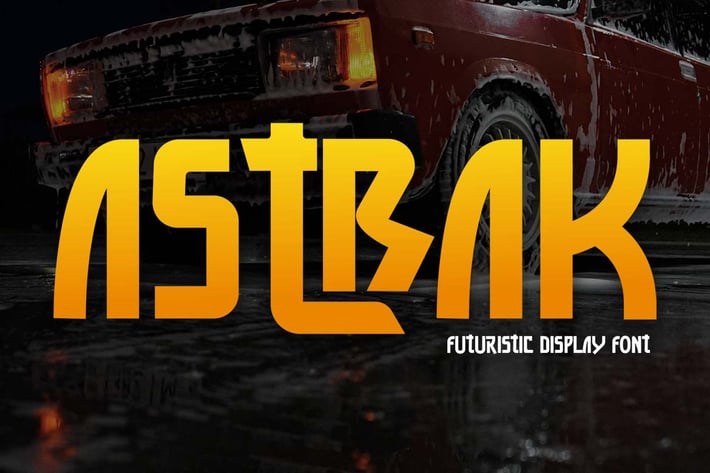
Astrak - Display Font
Introducing Astrak, a simple and modern sans serif font. It's unique and futuristic feel.
So perfect for you who needs a typeface for logo designs, magazine, social media, brochure, and many more.